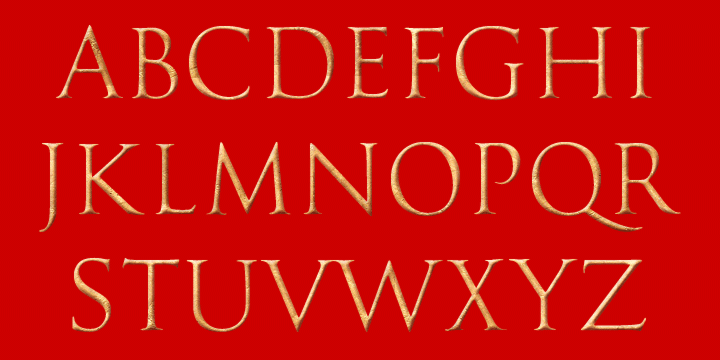
Goudy Trajan Pro Regular
Goudy Trajan™ Pro is based on drawings by American type designer Frederic W. Goudy of his interpretation of the capital letters inscribed on the Trajan column in Rome. (It is not a revival of his subsequent "Trajan Title," released in 1930.) Goudy Trajan Pro includes almost 1500 glyphs in each of three weights, including: uppercase, alternates, swash caps, small caps, vertically centered small caps, fleurons, and much more. It supports most European languages, including modern Greek and those that use the Cyrillic alphabet. Download free user guide.
"Goudy Trajan is possibly the finest font I have discovered. This font is perfect, and with the small amount I have used it so far, it appears to be practical yet still stylish." - DS
"To my eye, Goudy Trajan is the most elegant of the Trajan style fonts." - VW
"Just bought the three font package of [Goudy] Trajan. Stunning! Spectacular! Brilliant! are just a few of the accolades I have for you and your work and foundry." — FM